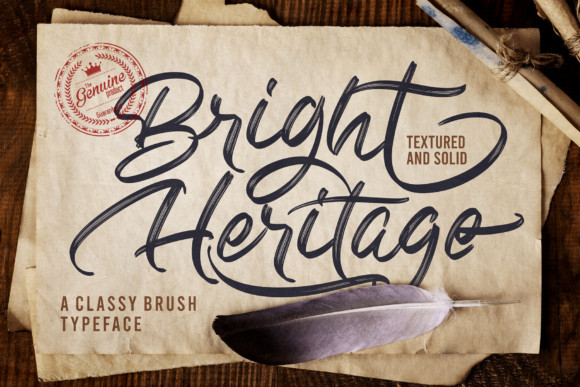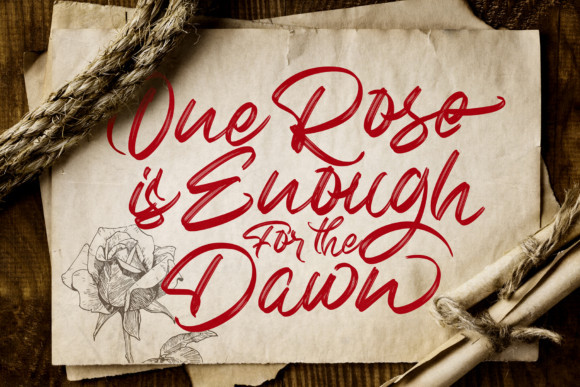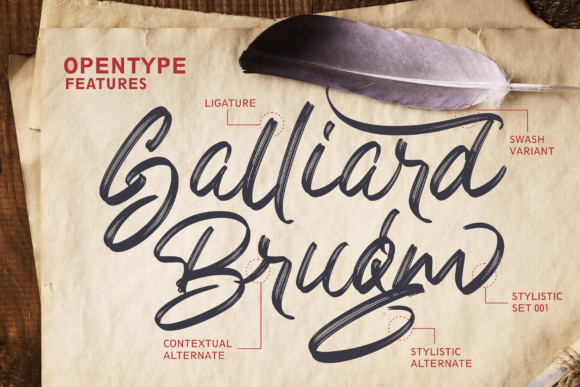
Bright Heritage Font
Bright Heritage is an authentic brush style handwritten font. Use it to make your ideas even more realistic and create spectacular designs!